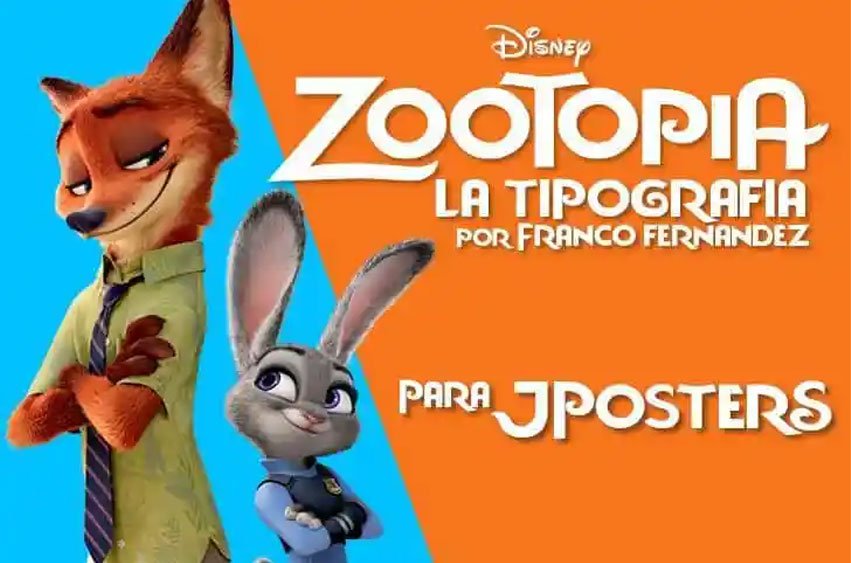
Zootopia JPosters Font Converted the movies name into a legible text that has the look of a poster for the movie Zootopia with the help of this Disney font named “Zootopia JPosters” by FZ Fonts.